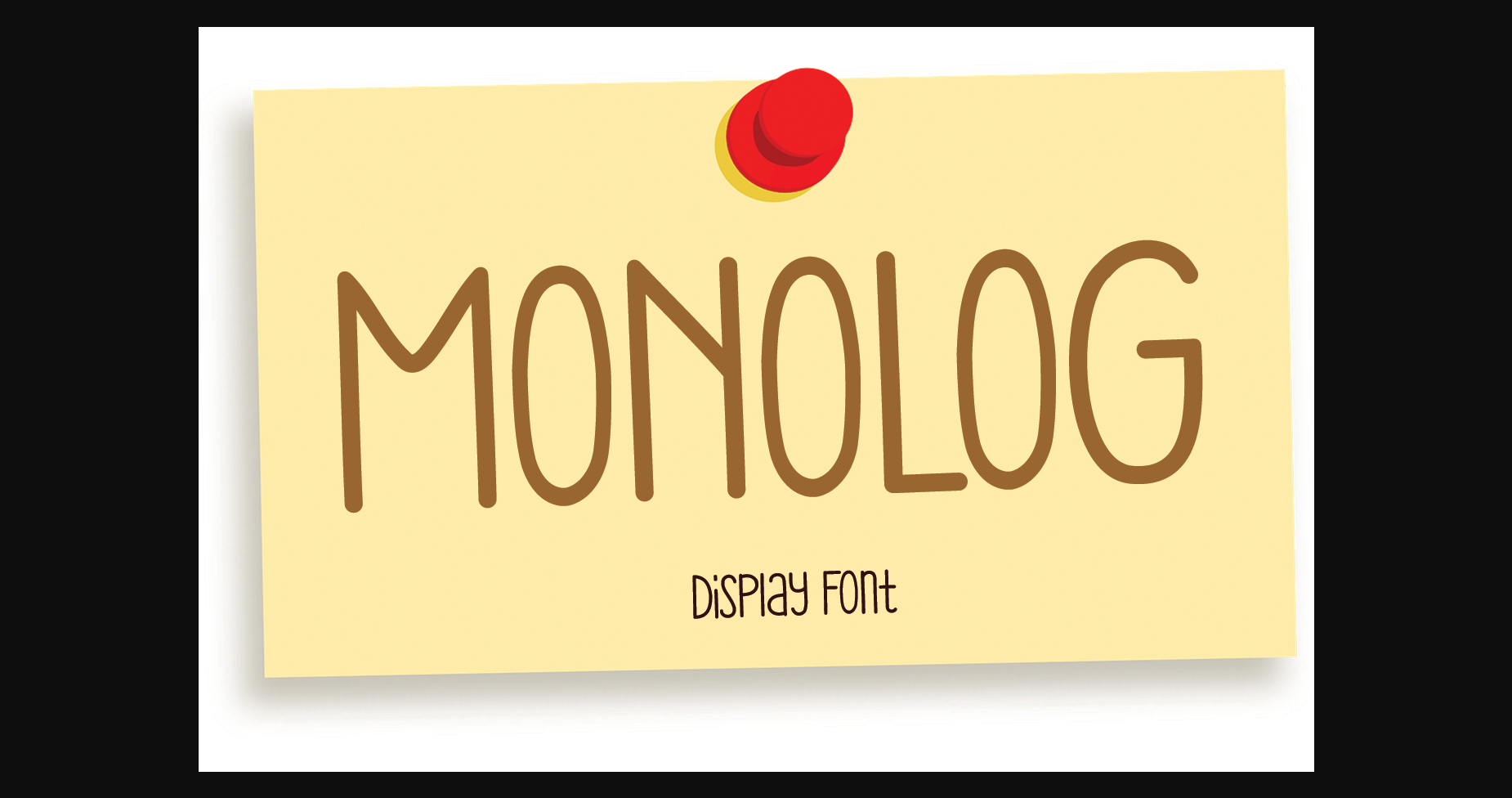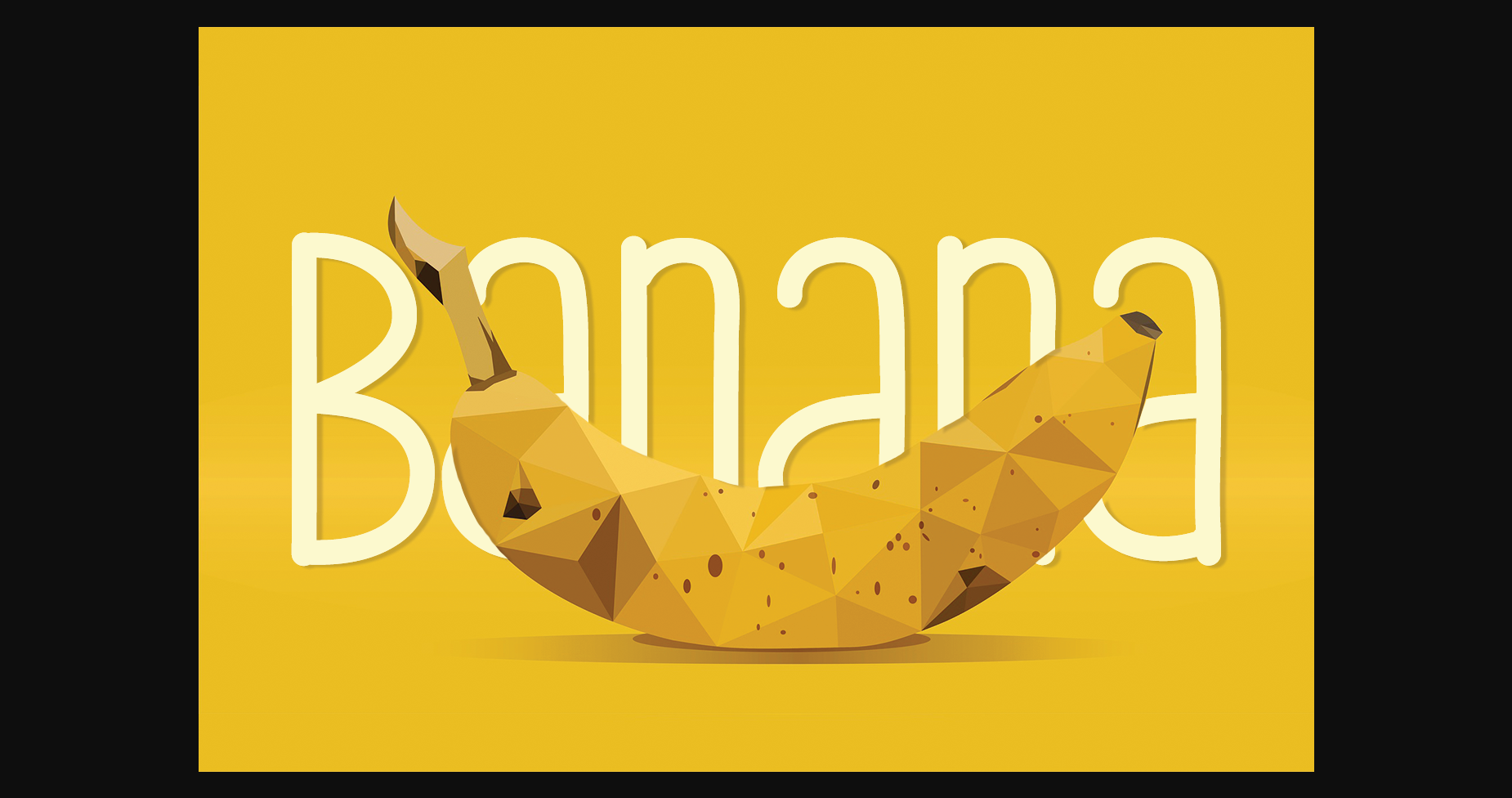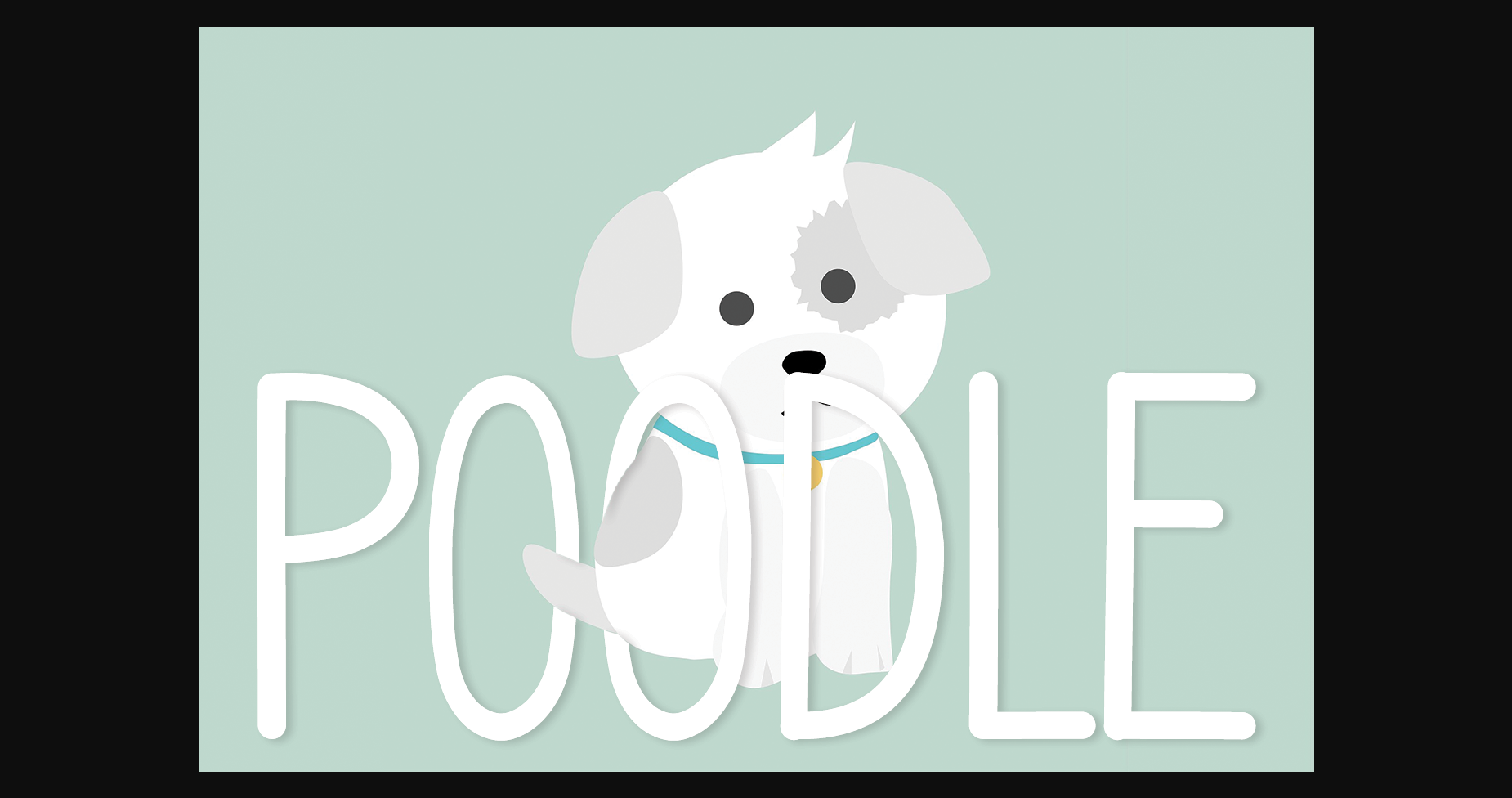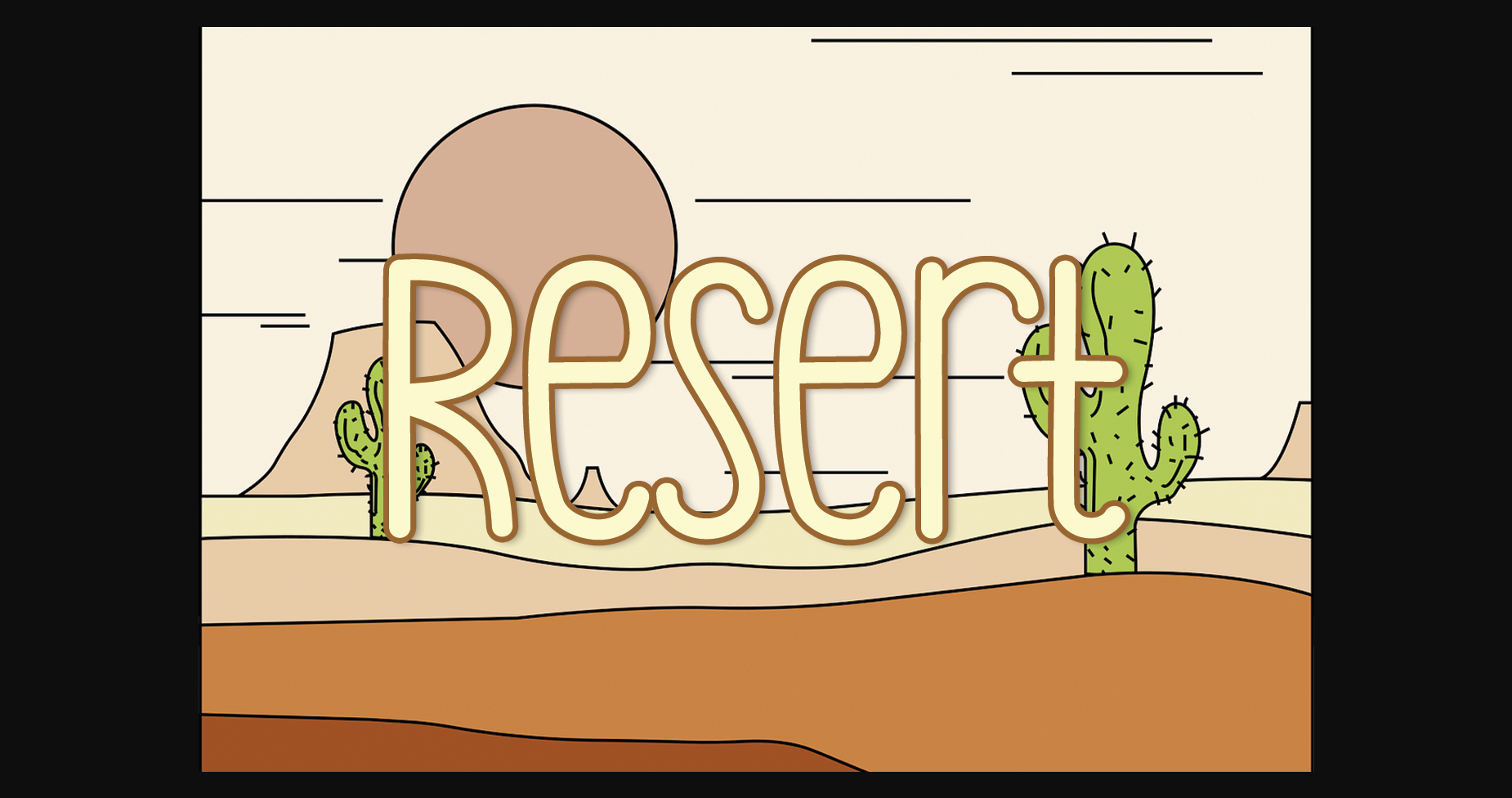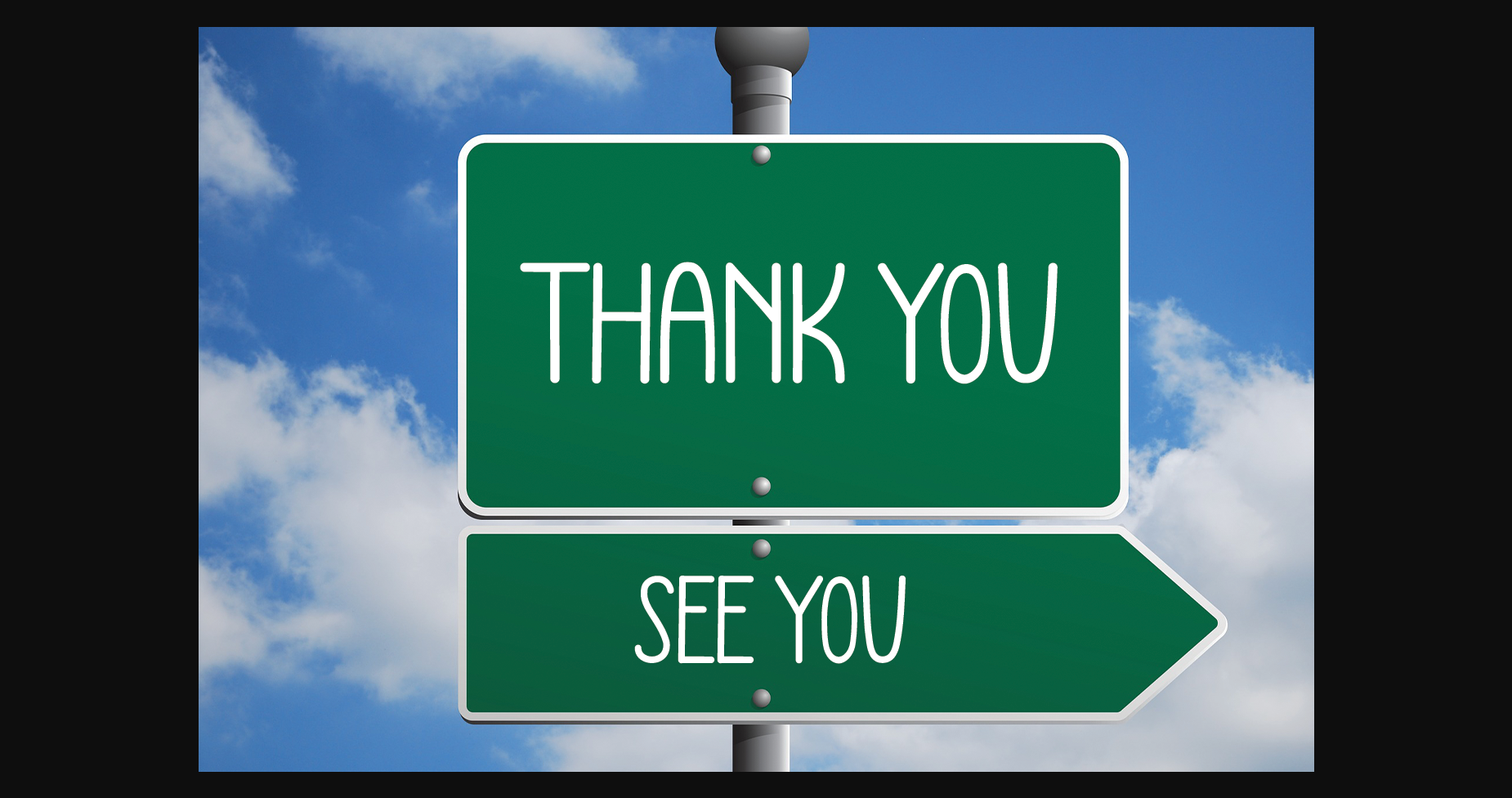
HomeSans Serif FontsMonolog Font Sans Serif Fonts Monolog Font FacebookXPinterestWhatsApp 1 of 7 ... Monolog Font Poster 2... Monolog Font Poster 3... Monolog Font Poster 4... Monolog Font Poster 5... Monolog Font Poster 6... Monolog Font Poster 7... About Monolog Font Monolog is a simple and friendly sans serif font. It can easily be matched to an incredibly large set of projects, so add it to your creative ideas and notice how it makes them stand out! DOWNLOAD NOW People also explored Lucky Day Font Black Coffee Font Autumn Leaves Font Weirdos Font Virginia Font Lovely Day Font Syadhes Font Cherytos Script Font My Family Font 297 0 TagsMonologMonolog Font Previous articleNangkod FontNext articleBestigia Font LEAVE A REPLY Cancel reply Comment: Please enter your comment! Name:* Please enter your name here Email:* You have entered an incorrect email address! Please enter your email address here Website: Save my name, email, and website in this browser for the next time I comment. Personal Use Free Kids Toys Personal Use Free Read more about this font Yumail Personal Use Free Read more about this font Starborn Font Personal Use Free Read more about this font Adeline Personal Use Free Read more about this font BLOG How to Install and Use Fonts on Windows, macOS, and Web Projects How to Install and Use Fonts on Windows, macOS, and Web Projects Fonts are a crucial part of design and branding. Whether you’re designing a... Elegant Wedding Invitation Fonts – Handwritten & Script Fonts Where to Buy American Fonts Online in 2024 Transform Your Website: Elevate Your Typography with 7 Best Web Font Generators